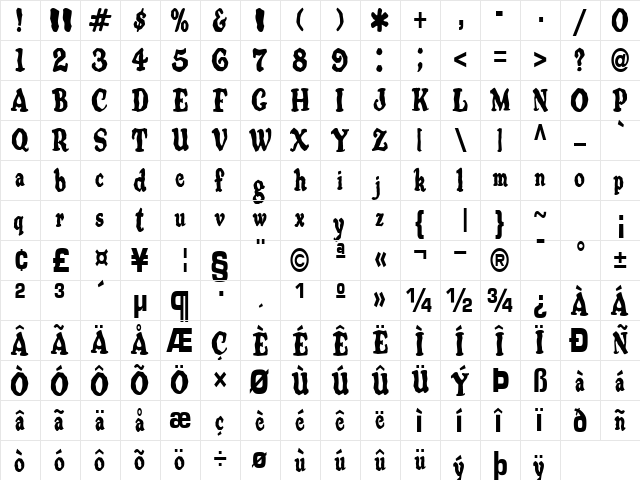
Fool Regular
Design Context for Fool Typeface
Fool is a composed and adaptable typeface that performs quietly and consistently across a wide range of design contexts.